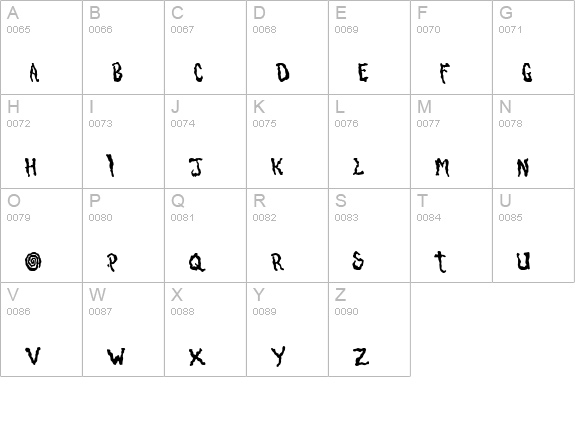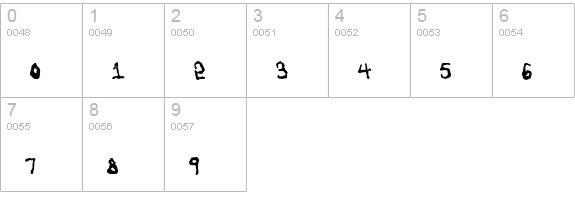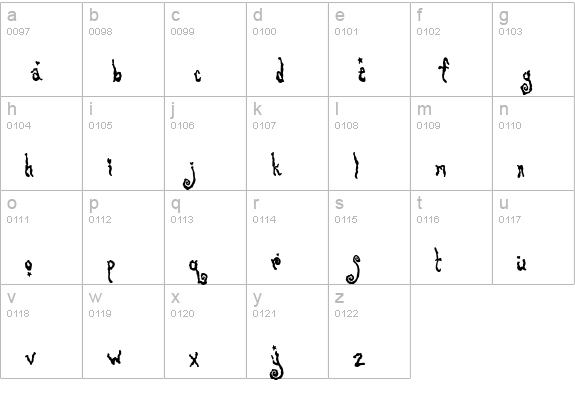
Pretty On The Inside font is a charming and elegant typeface that exudes a sense of sophistication and beauty. With its delicate curves and stylish flourishes, this font is perfect for adding a touch of grace to any design project. Whether you're creating invitations, posters, or branding materials, Pretty On The Inside font will elevate your work to new heights. The best part? Pretty On The Inside font is completely free to download at FontsMarket.com. Yes, you read that right - you can enhance your designs with this stunning font without spending a dime. Don't miss out on this opportunity to add a touch of elegance to your creations with the gorgeous Pretty On The Inside font. Download it now and let your creativity shine!